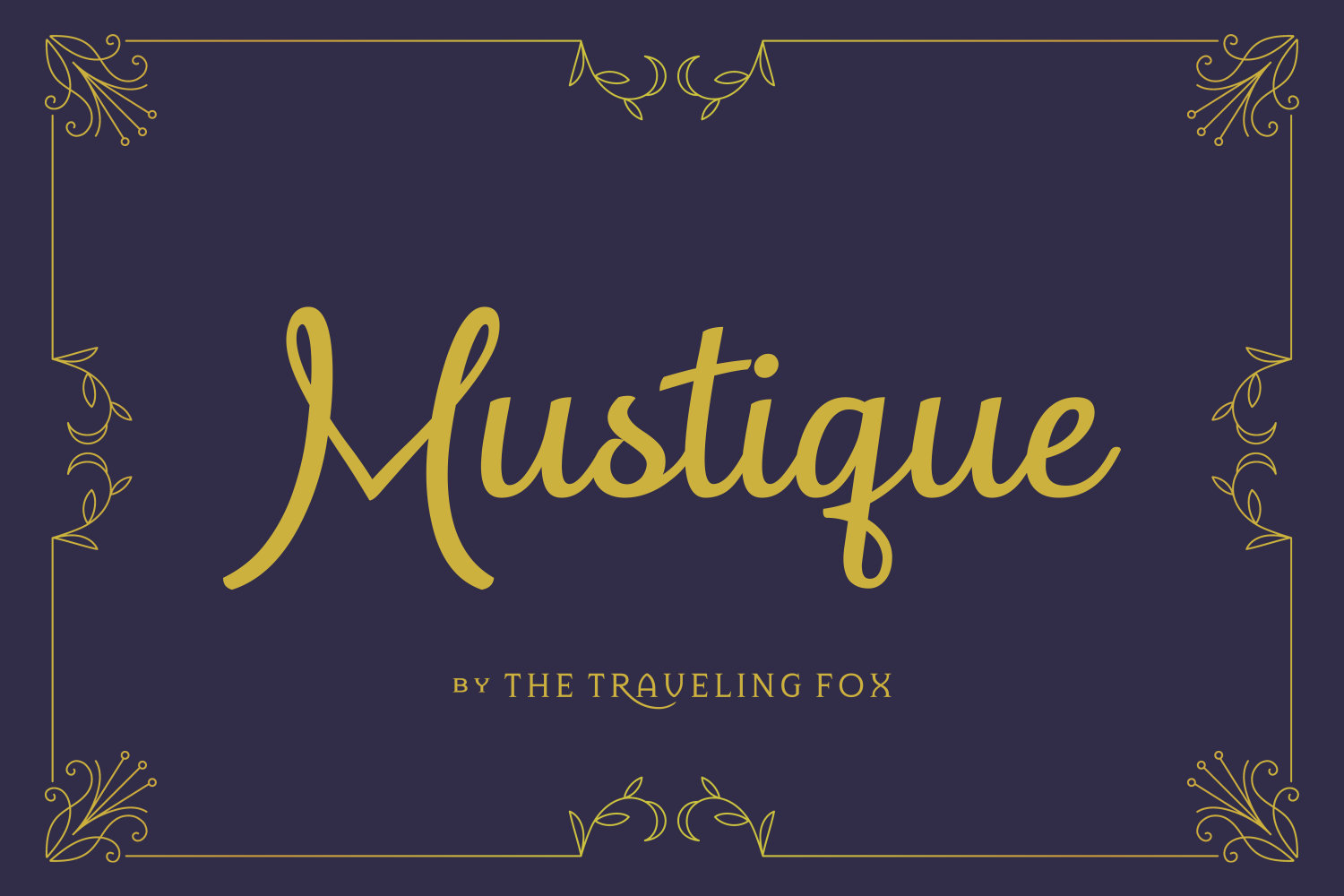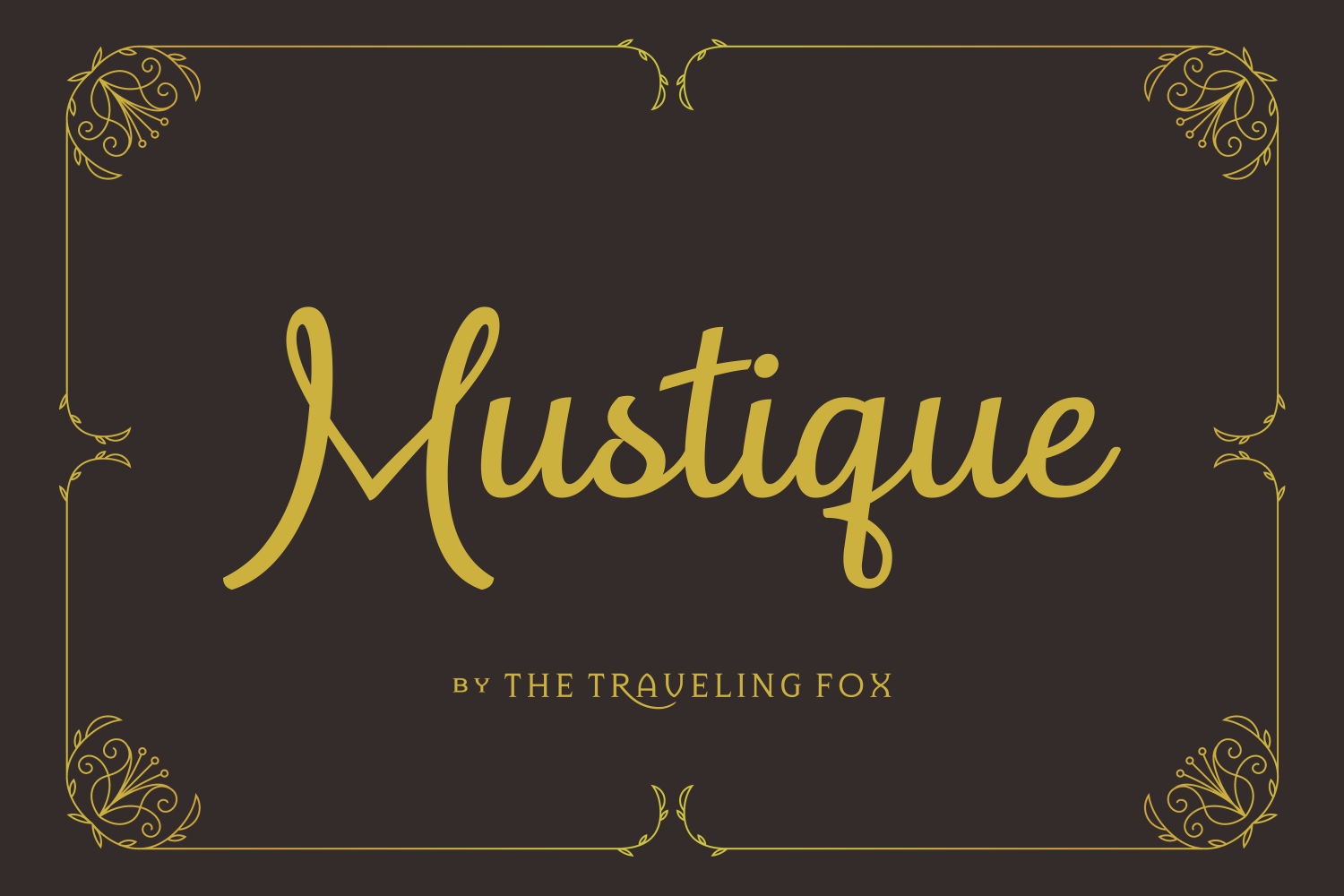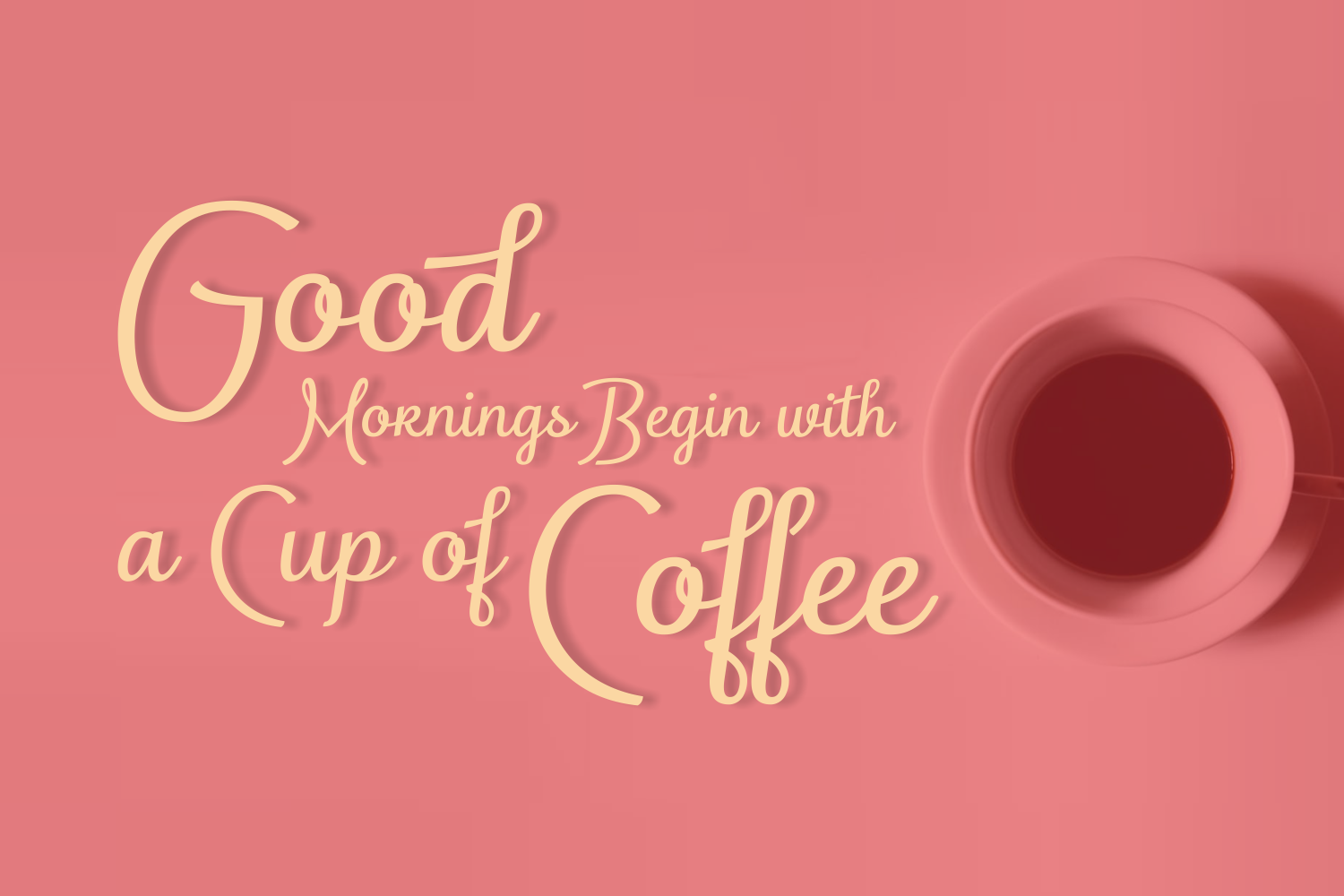
Mustique Font
About Mustique Font
Mustique is an elegant handwritten font.
This free-flowing font is very pleasant on the eyes. It has a smooth flow between the characters. Because the baseline is very steady and the height of the characters is the same, it’s a very calming font that can be used for both personal & corporate design.